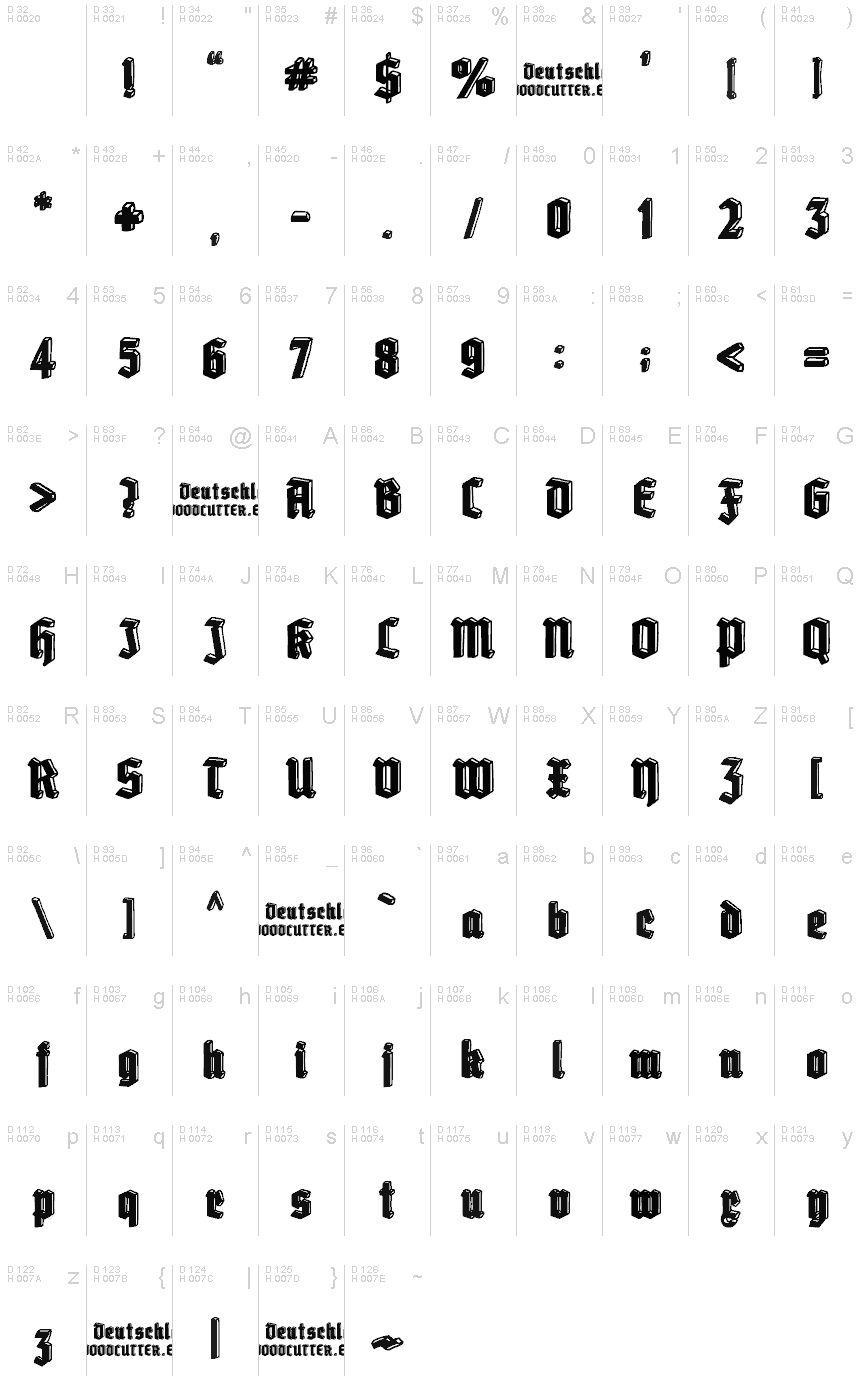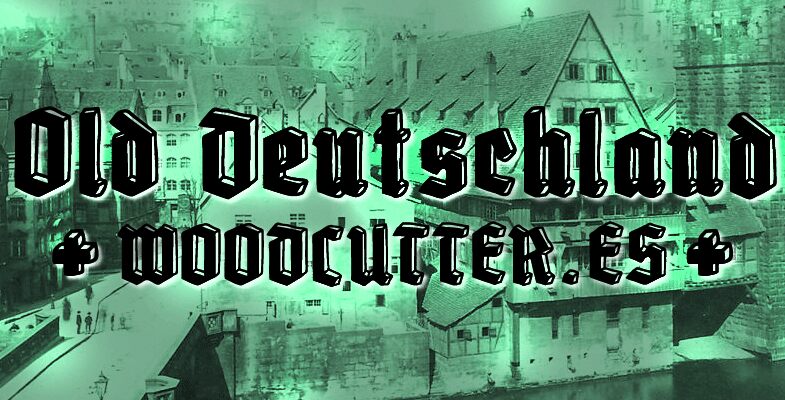
Old Deutschland
"Old Deutschland" is a striking gothic font that evokes the grandeur and tradition of medieval Germany. Designed by the renowned "Woodcutter Manero," this bold, condensed typeface exudes a sense of majestic authority.
Its sharp, angular strokes and ornate flourishes lend a timeless, historical presence to any text. From historical reenactments and book covers to signage and branding, "Old Deutschland" offers a versatile option for projects seeking to convey a sense of rugged, old-world elegance.
Its distinct aesthetic makes it a compelling choice for designers aiming to create a powerful, immersive visual experience.